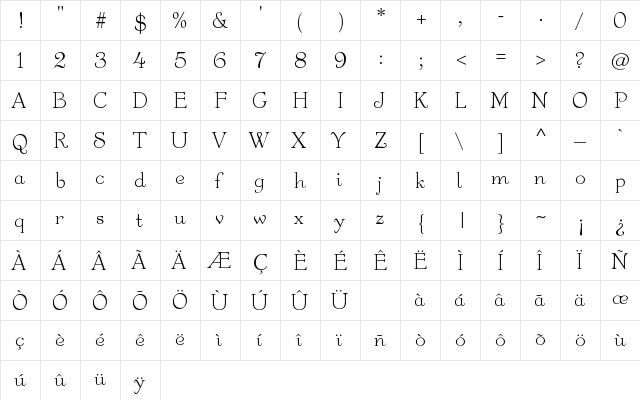
AnnouncementRomanHMK Regular
Design Context for AnnouncementRomanHMK Typeface
AnnouncementRomanHMK takes a measured approach to typography — its balanced proportions and neutral character make it a reliable workhorse for both digital and print work.